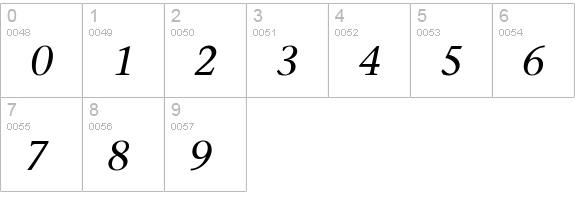
Mesouran Serif SSi Italic is a distinctive, italic variant in the Mesouran typeface family \xE2\x80\x94 well suited to design and typography projects.
The Mesouran Serif SSi Italic font is a beautiful and elegant typeface that exudes sophistication and style. Its slanted design adds a touch of flair and dynamism to any text, making it perfect for conveying a sense of creativity and modernity. The delicate curves and graceful lines of this font make it a versatile choice for a wide range of design projects, from branding and marketing materials to invitations and editorial layouts. What's even better is that the Mesouran Serif SSi Italic font is available for free download at FontsMarket.com. This means that you can easily access this stunning typeface without having to spend a dime. Whether you're a graphic designer, a student, or someone looking to elevate the look of their projects, this font is a fantastic choice that won't break the bank. Embrace the beauty and versatility of the Mesouran Serif SSi Italic font and elevate your designs with its timeless appeal. Download it for free today and unlock a world of creative possibilities at your fingertips.